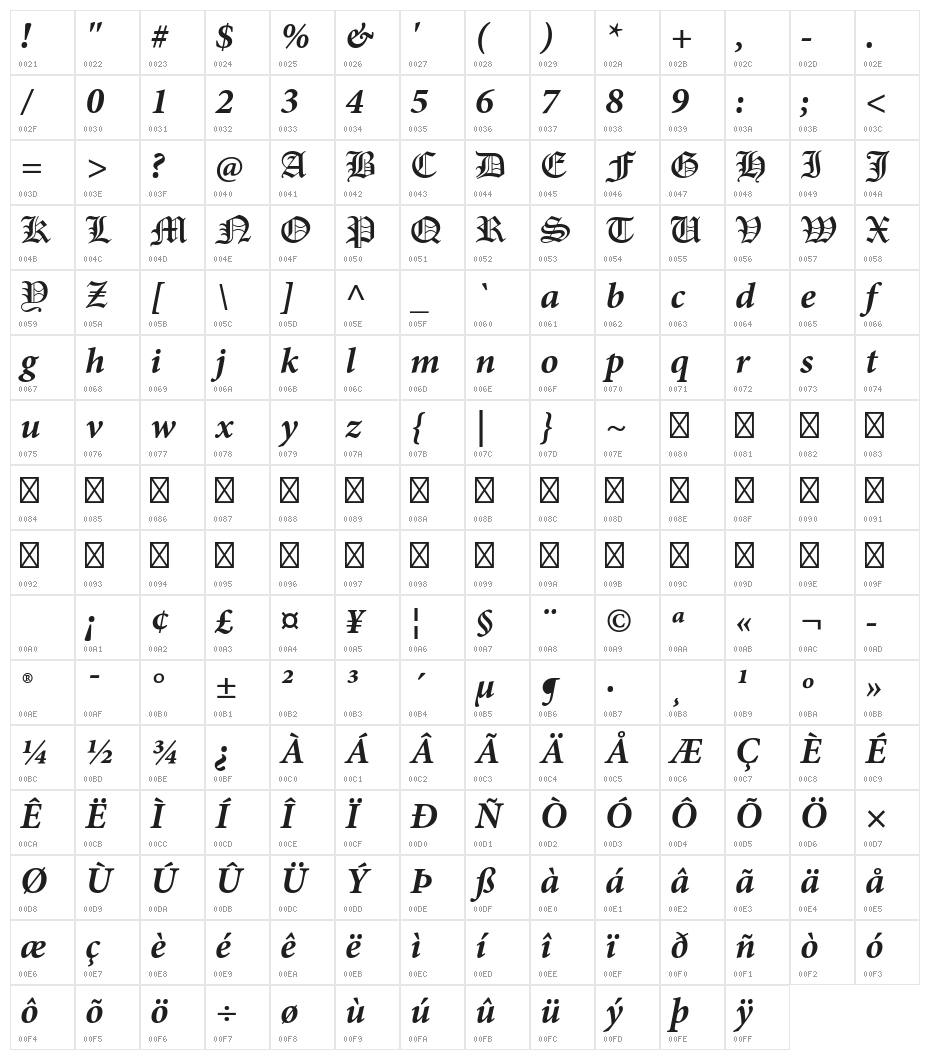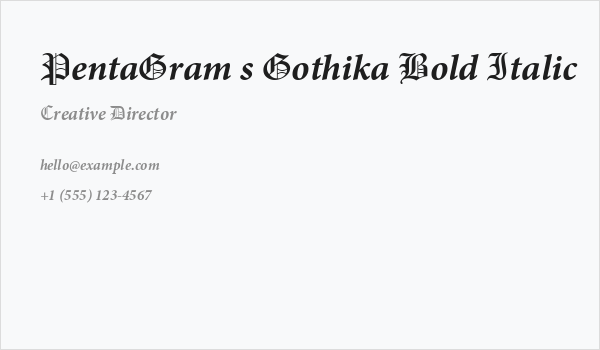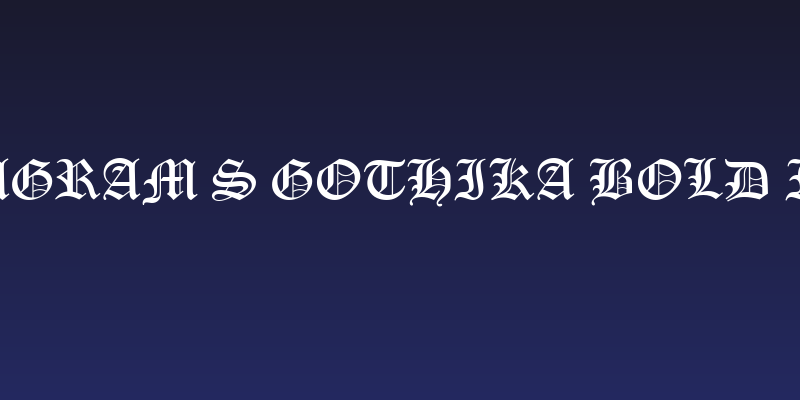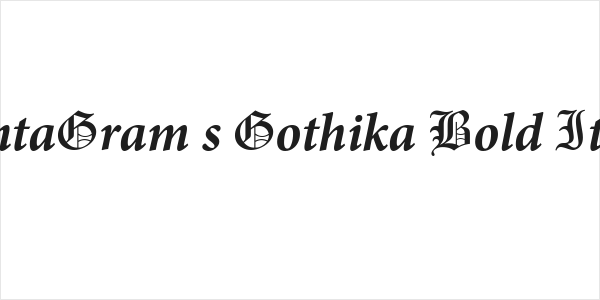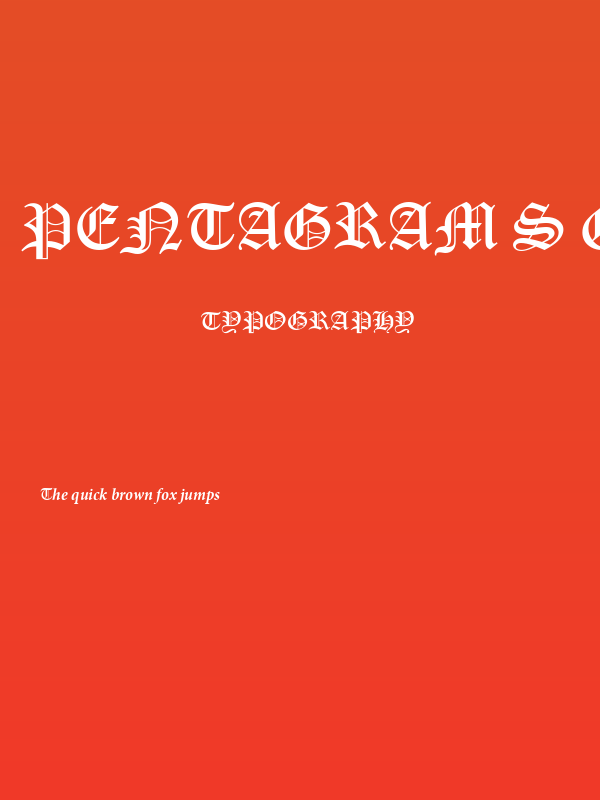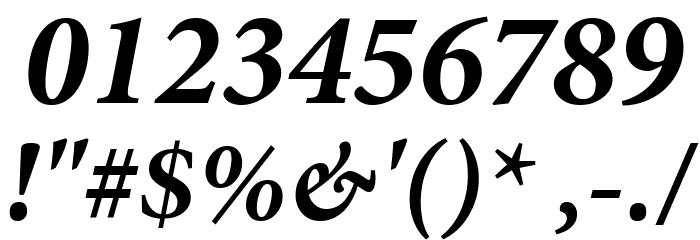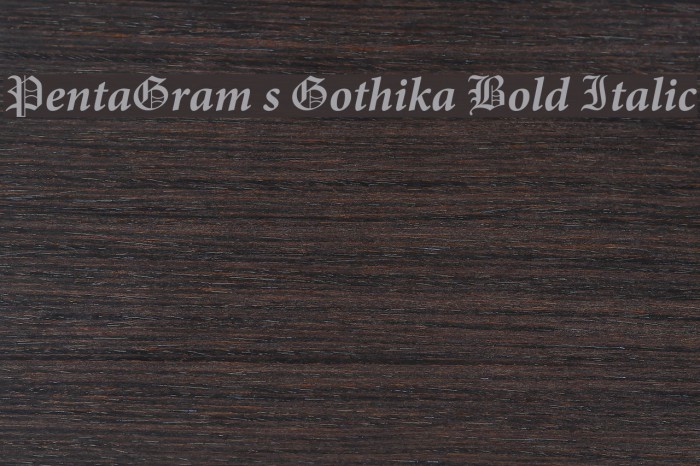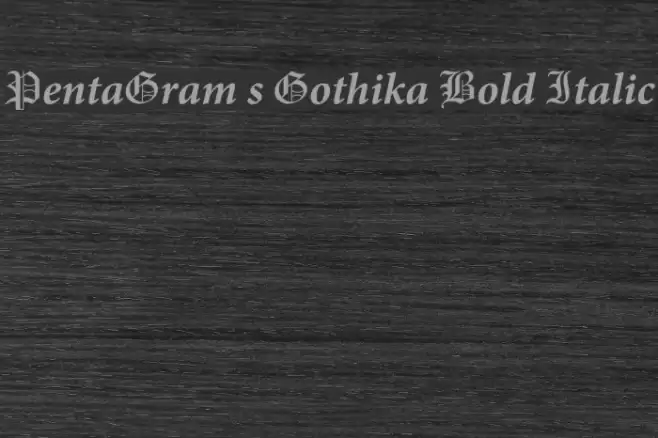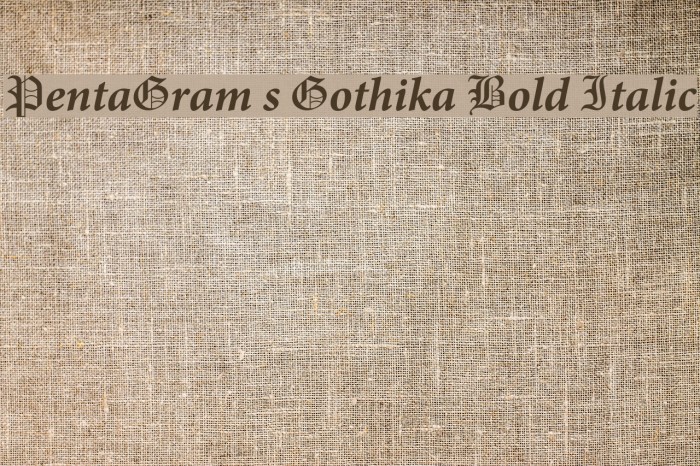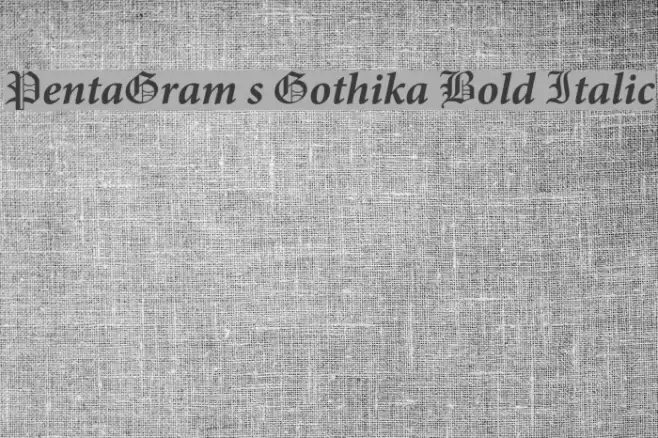
PentaGram s Gothika Bold Italic Font
PentaGram s Gothika Bold Italic Description
This font features a bold and italicized style with a distinct gothic influence. The uppercase letters exhibit intricate detailing and sharp edges, reminiscent of medieval script, while the lowercase letters maintain a more modern italicized flair. The numerals are bold and consistent with the overall style, providing a cohesive look. Special characters are designed with the same attention to detail, ensuring they blend seamlessly with both text and numbers. This font's unique combination of gothic and modern elements makes it versatile for various design applications.
| Proposed Projects | Ideal for projects requiring a dramatic and historical aesthetic, such as book covers, posters, or branding for gothic-themed events. |